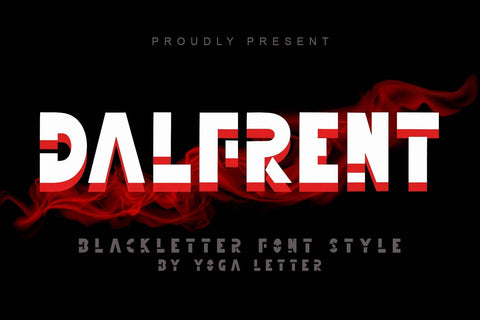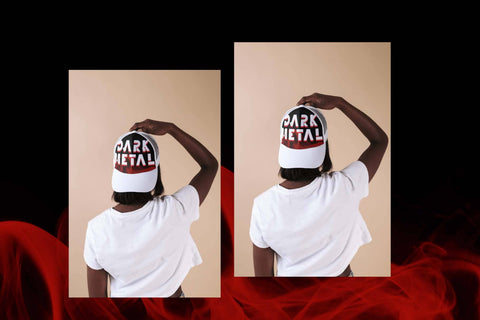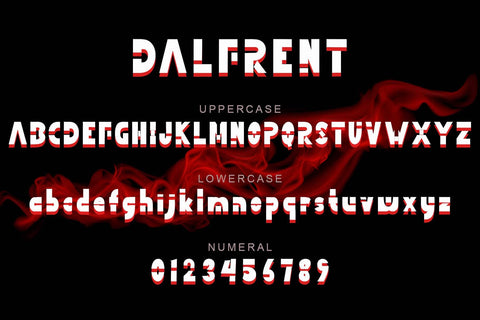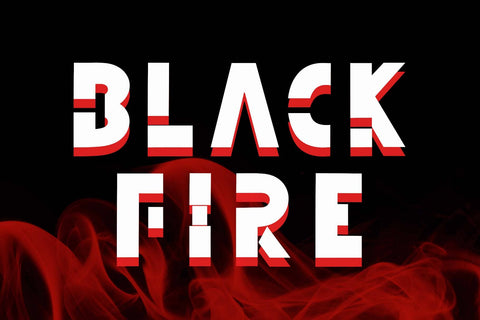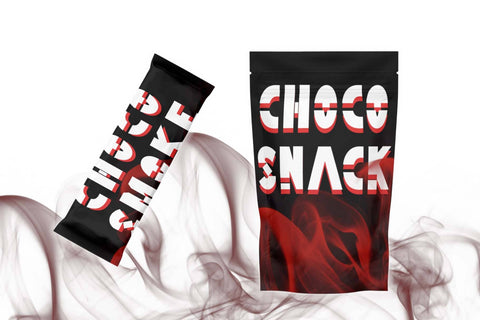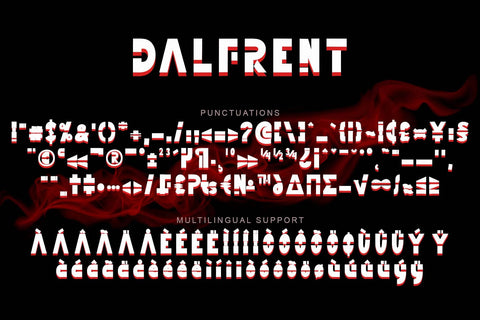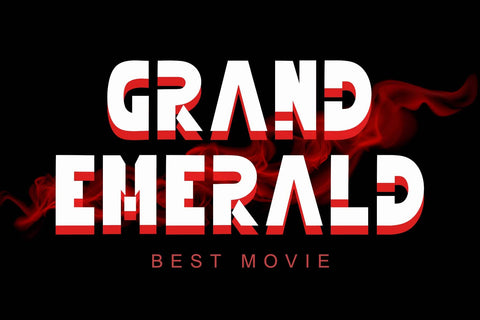
Dalfrent
"Dalfrent" is a unique and elegant blackletter font. This font is equipped with uppercase, lowercase, numerals, punctuations and multilingual support. Very suitable for business branding, halloween, horror, print, banner, poster, branding, sticker, logo, summer, christmas and others.